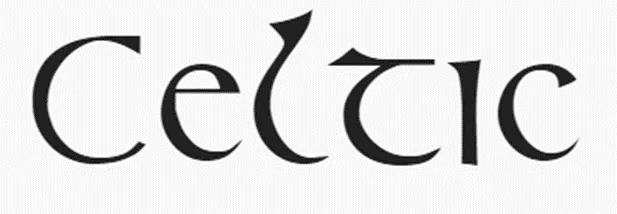
Let’s start with three traditional Celtic style fonts.
Irish Uncialfabeta
Kells Unical
Celtic
Still Celtic style but curvier with thinner strokes. Download
Irish Clovers
A fancy, decorative font. Use sparingly in headlines. Download
Shamrock
When you can’t have too much greenery in your font. Download